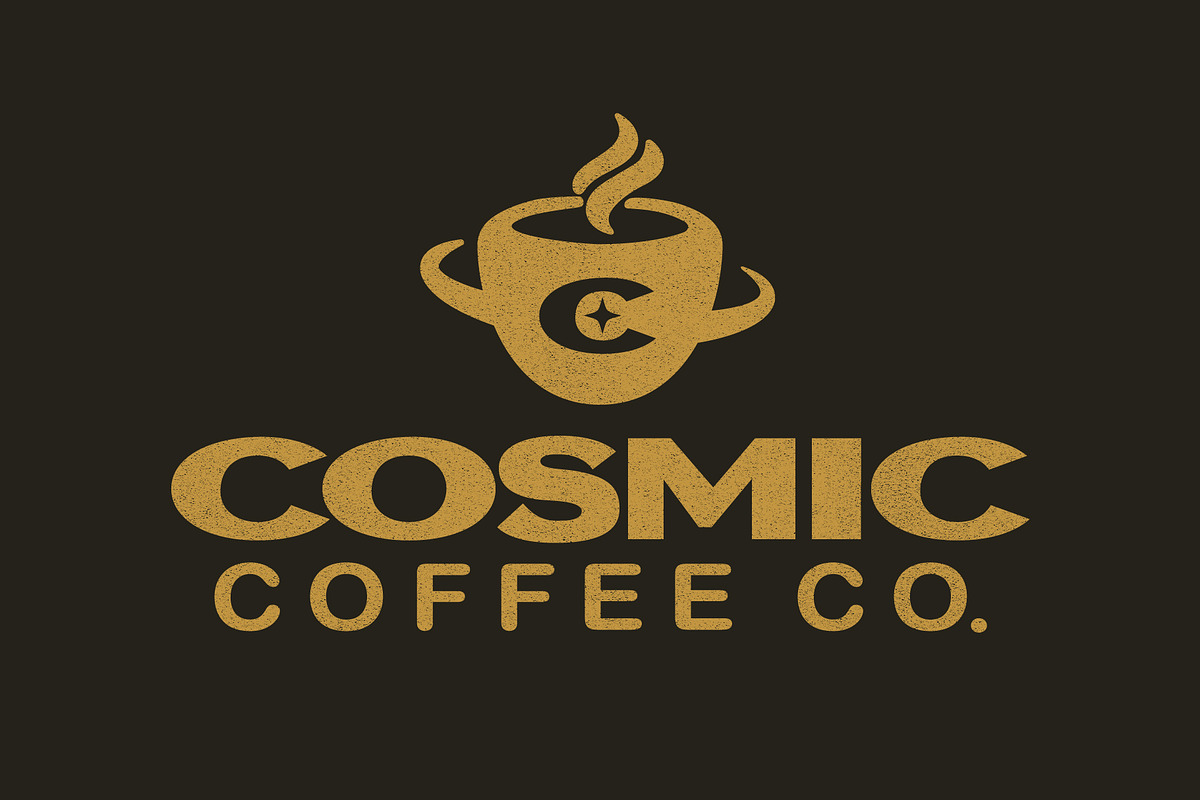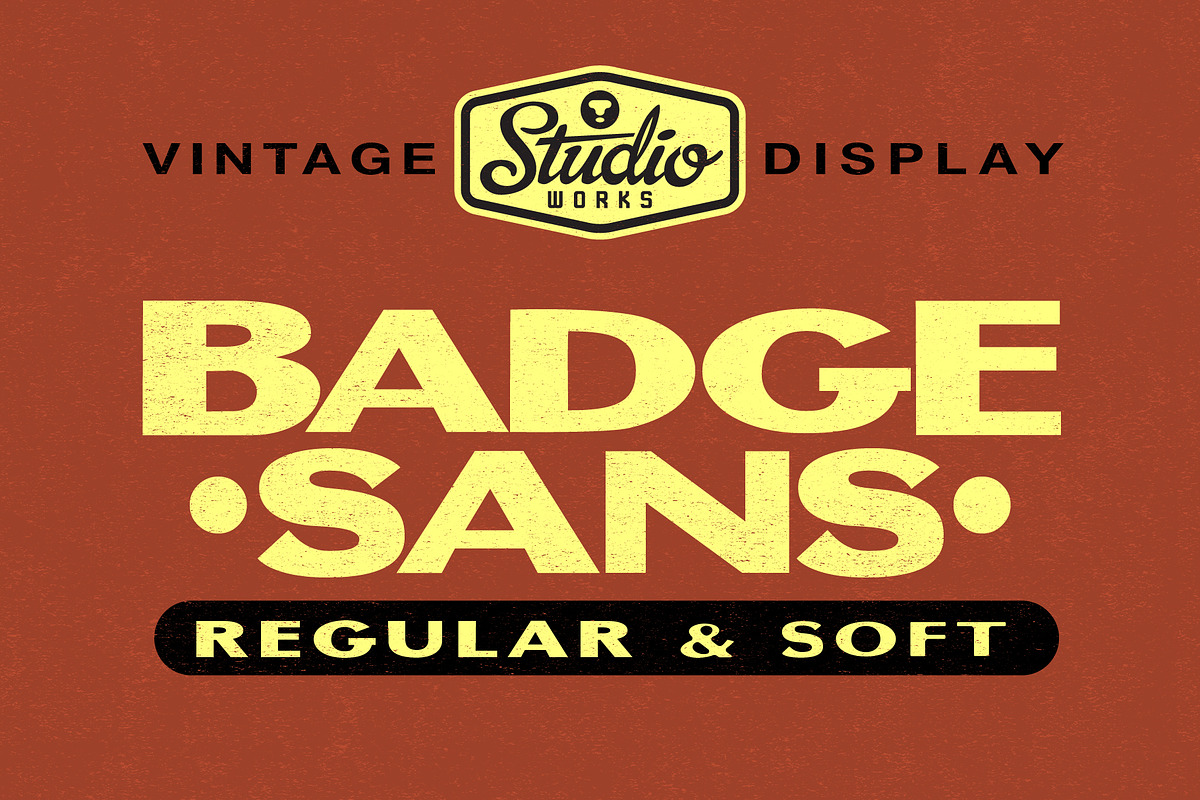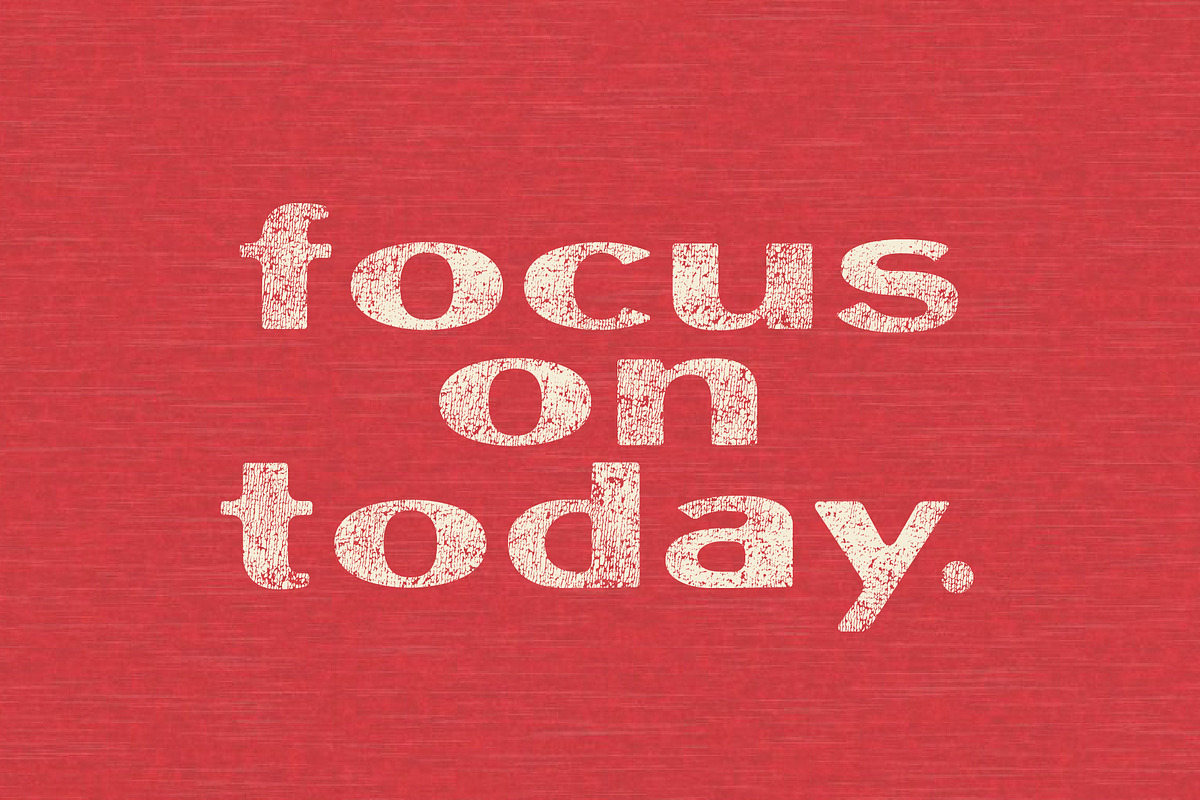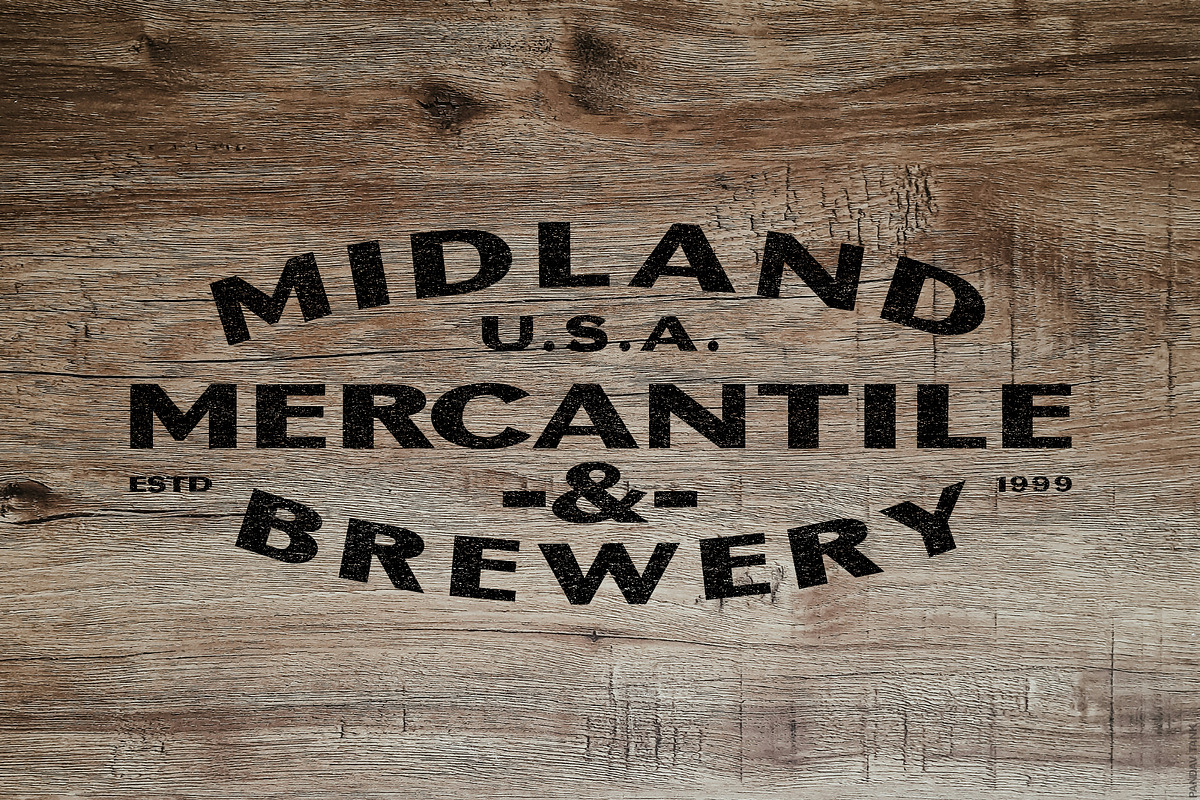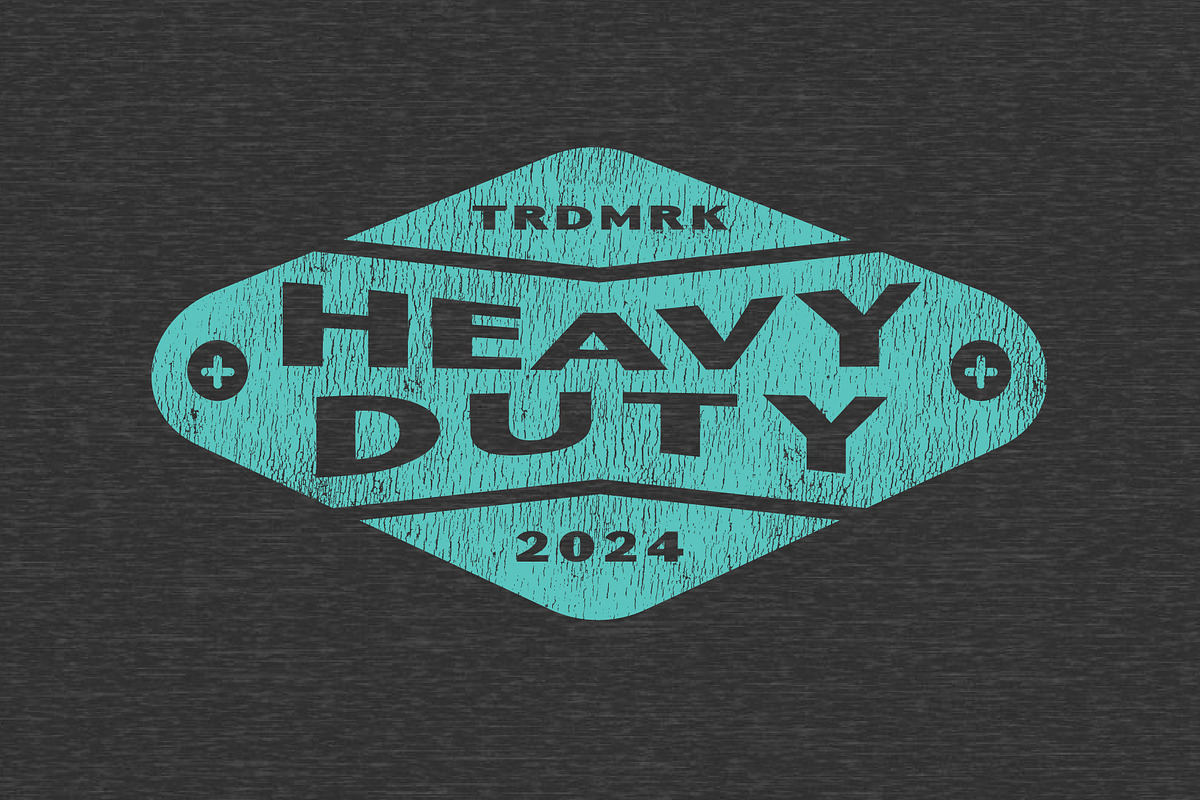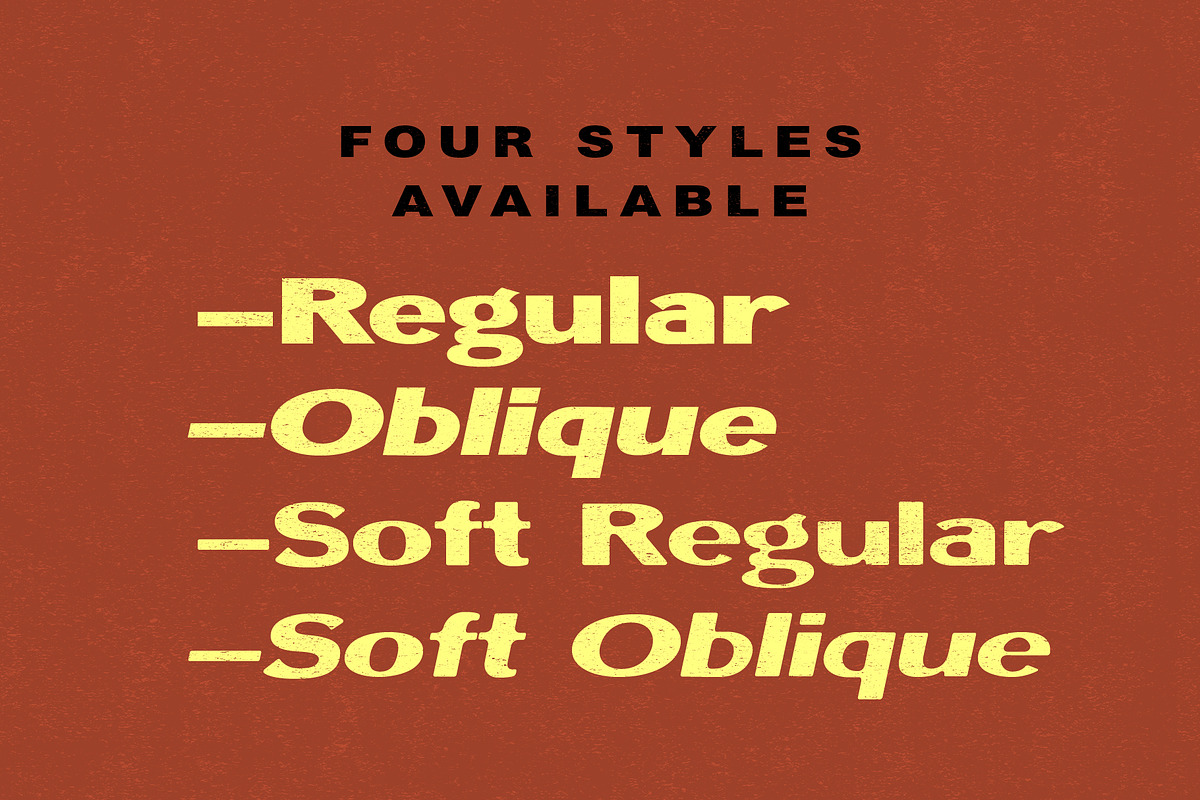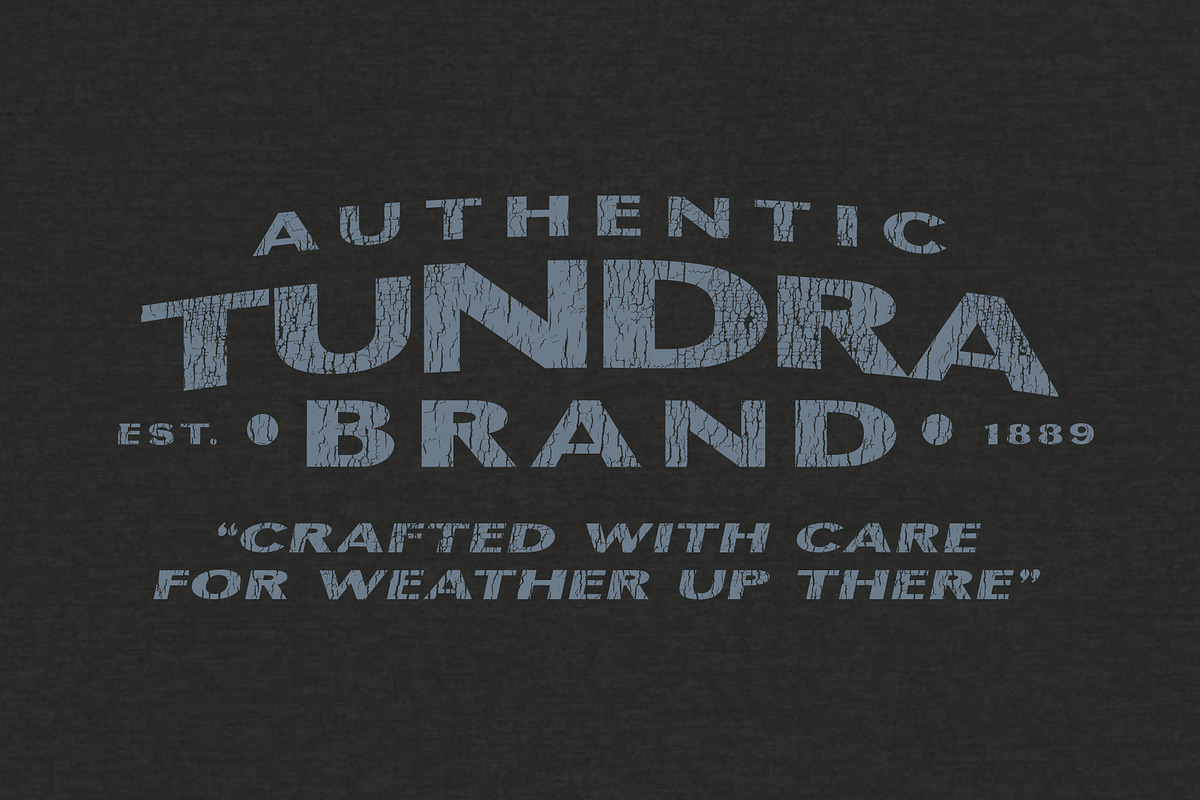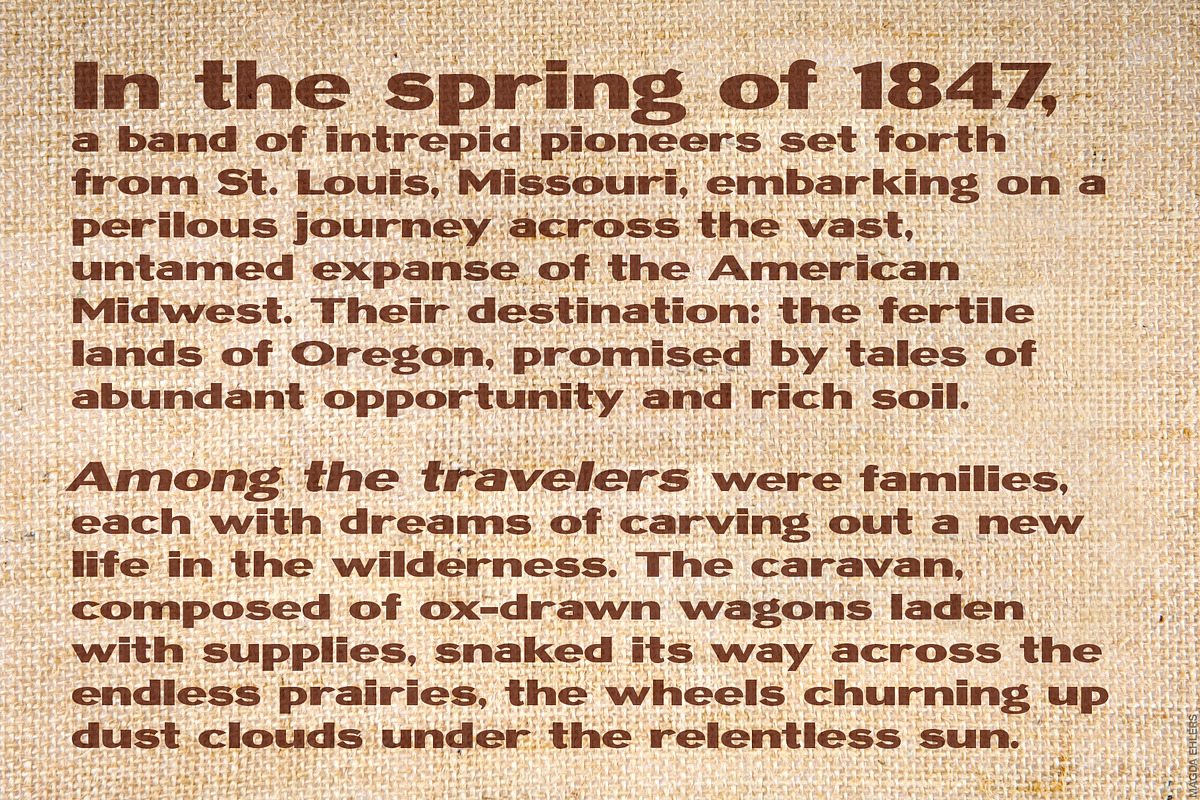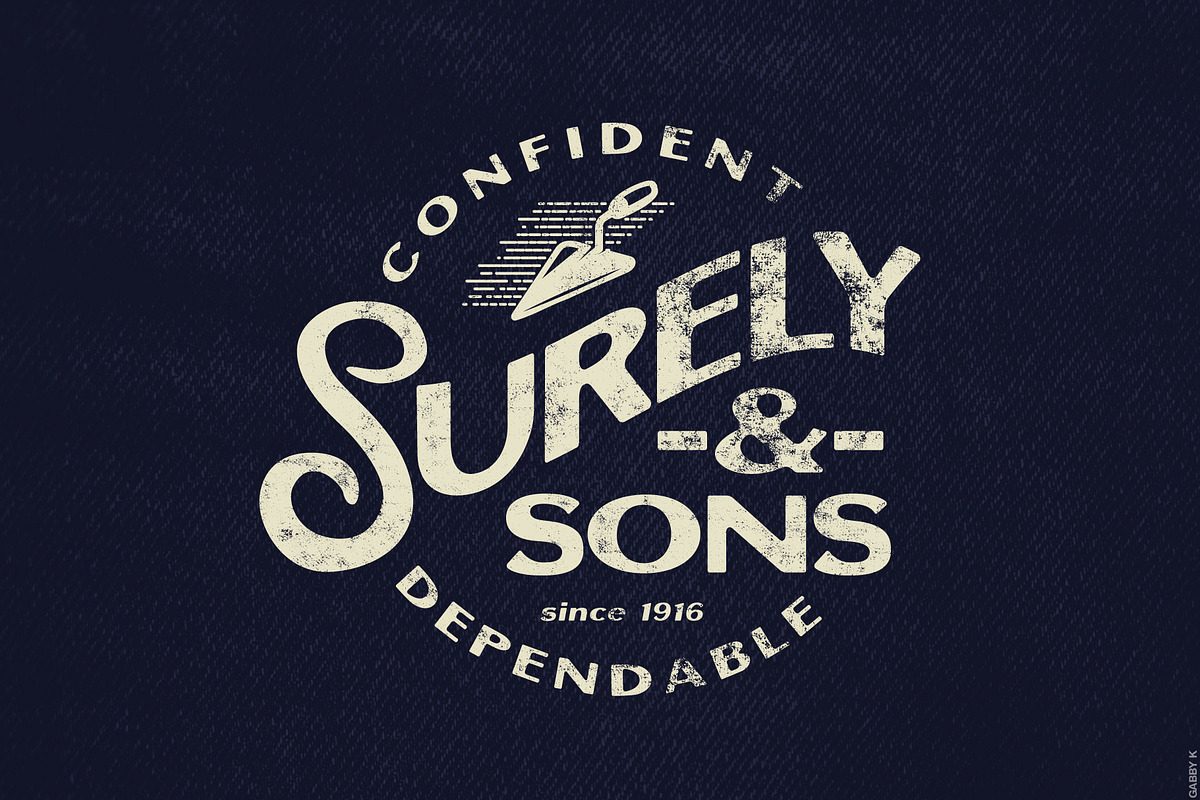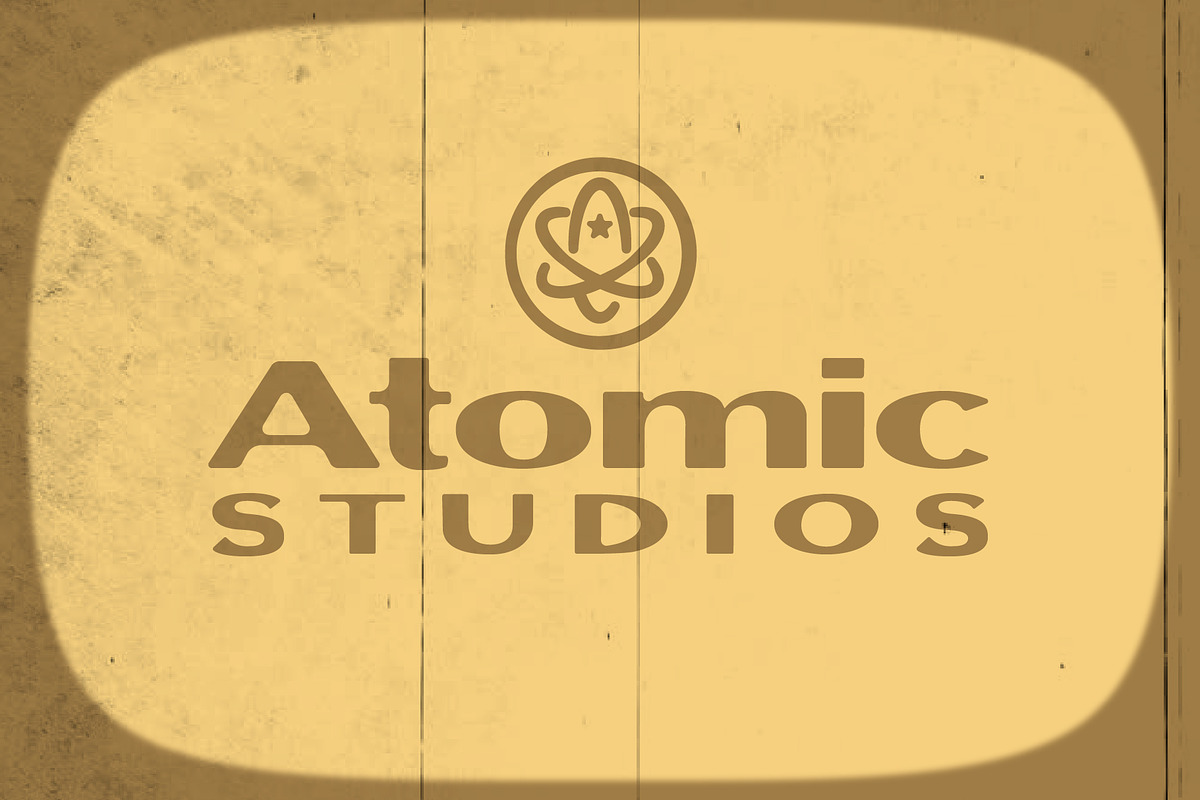
Badge Sans | Vintage Display
Add a touch of vintage authority with •• B A D G E • S A N S •• — a commanding display typeface from StudioWorks!
Step into the bold world of classic American advertising with Badge Sans. This powerhouse typeface, inspired by traditional hand-lettered sans serifs, brings the unmistakable charm of vintage badge-style lock-ups to your designs. Its wider stance and higher waistline create a distinctive look that's both unique and authoritative.
Perfect for type-heavy designs that need a touch of the traditional and well-established, Badge Sans sets the standard. For a more weathered and aged appearance, consider the perfectly styled complement, Badge Sans Soft.
Badge Sans features:
- Upper and lower case A-Z characters
- Numbers (0-9)
- Standard punctuation and glyphs
- Regular and Italic type styles
- Includes a rounded complement, Badge Sans Soft (regular and italic)
Ideal for retro-style logos, eye-catching signage, and dynamic typographic layouts, Badge Sans will help your designs command attention with timeless appeal.